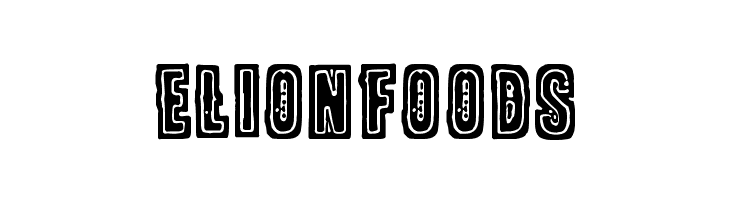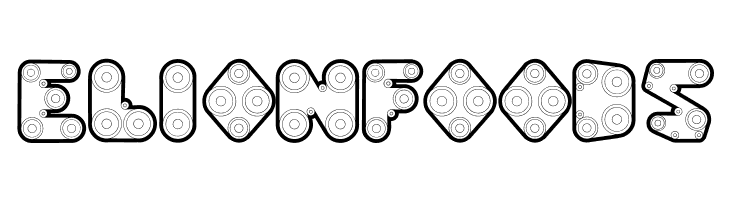
( Fonts by www.junkohanhero.com )
A bold, distressed decorative font with a vintage, grunge effect.
( Fonts by Daniel Gauthier )
A bold, playful font with a bubbly, textured design and thick outlines.
( Fonts by Daniel Gauthier )
A bold, decorative font with intricate circular patterns and a mechanical feel.